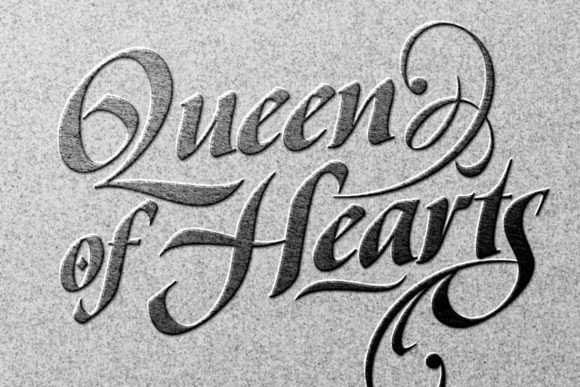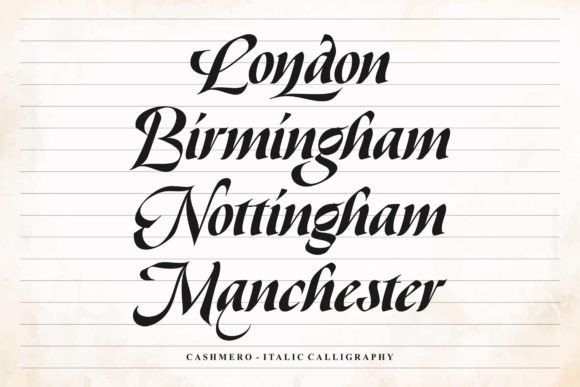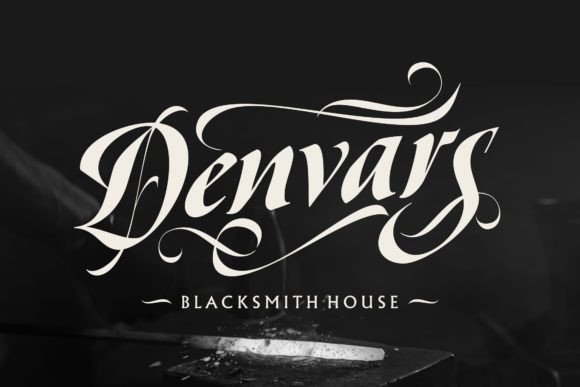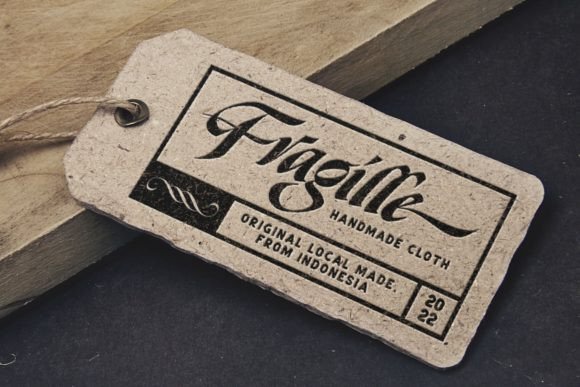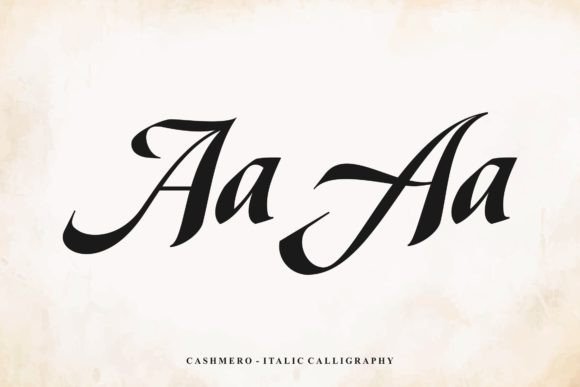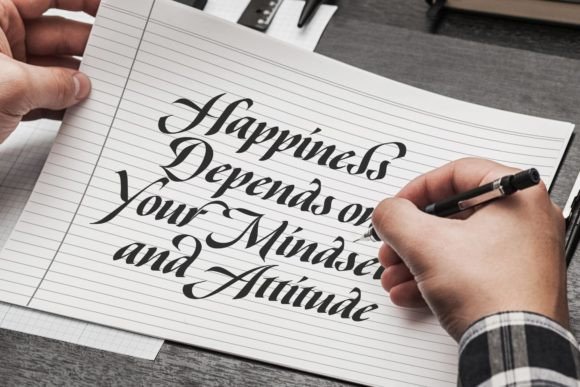
Introducing Cashmero: The Elegant Calligraphy Font for Modern Designers
In the world of typography, calligraphy fonts have always been a popular choice among designers and crafters. They add a touch of elegance, sophistication, and creativity to any design project. One such font that has gained significant attention in recent times is Cashmero – an italic calligraphy font inspired by traditional calligraphy. In this article, we’ll explore the features, benefits, and uses of Cashmero, and why it’s become a go-to font for designers and crafters alike.
What is Cashmero Font?
Cashmero is a beautifully crafted italic calligraphy font that draws inspiration from traditional calligraphy. Its intricate patterns, knots, and ornaments make it a unique and stunning addition to any design project. The font’s design is rooted in ancient calligraphy techniques, yet it has a modern twist that makes it perfect for contemporary designs.
Key Features of Cashmero Font
- Intricate Patterns and Knots: Cashmero features beautifully crafted knots and intricate patterns that add a touch of elegance to your designs.
- Ornaments: The font comes with a range of ornaments that can be used to enhance the traditional feel of your designs.
- Italic Calligraphy Style: Cashmero is an italic calligraphy font, making it perfect for designs that require a touch of sophistication and flair.
- Modern Twist: Despite being inspired by traditional calligraphy, Cashmero has a modern twist that makes it suitable for contemporary designs.
Benefits of Using Cashmero Font
So, why should designers and crafters choose Cashmero for their projects? Here are some benefits of using this elegant calligraphy font:
- Adds Elegance and Sophistication: Cashmero’s intricate patterns and ornaments add a touch of elegance and sophistication to any design project.
- Perfect for Creative Projects: The font’s unique design makes it perfect for creative projects, such as branding, packaging, and advertising.
- Versatile: Cashmero can be used for a range of design projects, from digital designs to print materials.
Use Cases for Cashmero Font
Cashmero is a versatile font that can be used for a range of design projects. Here are some use cases:
- Branding and Logo Design: Cashmero’s elegant design makes it perfect for branding and logo design projects.
- Wedding and Event Design: The font’s intricate patterns and ornaments make it ideal for wedding and event designs, such as invitations and programs.
- Packaging Design: Cashmero can be used for packaging design projects, such as labels and packaging materials.
- Advertising and Marketing: The font’s unique design makes it perfect for advertising and marketing materials, such as brochures and flyers.
Tips for Using Cashmero Font
Here are some tips for using Cashmero effectively in your design projects:
- Use it Sparingly: Cashmero’s intricate patterns and ornaments can be overwhelming if used excessively. Use it sparingly to add a touch of elegance to your designs.
- Pair it with Simple Fonts: Pair Cashmero with simple fonts to create a striking contrast and add visual interest to your designs.
- Experiment with Colors: Cashmero looks stunning in a range of colors. Experiment with different colors to find the perfect combination for your design.
Cashmero is a stunning italic calligraphy font that brings a touch of ancient modern to your designs. Its intricate patterns, knots, and ornaments make it a unique and elegant addition to any design project. With its versatility, ease of use, and range of benefits, Cashmero is perfect for designers and crafters looking to add a touch of sophistication and elegance to their designs.